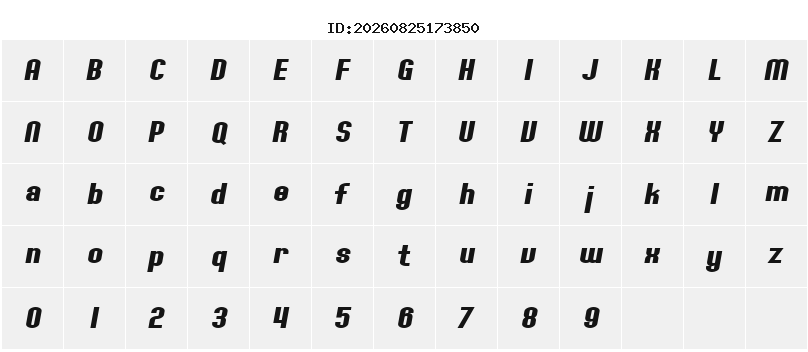
SF Willamette Extended Preview
• Font Name: SF Willamette Extended
• Font ID: SF Willamette Extended Bold Italic
• Full Font Name: SF Willamette Extended Bold Italic
• PostScript Name: SFWillametteExtendedBoldItalic
About SF Willamette Extended.ttf
SF Willamette Extended.ttf is a modern, elegant sans-serif font designed for ultimate readability and visual harmony. Perfect for branding, headlines, web design, and print materials.